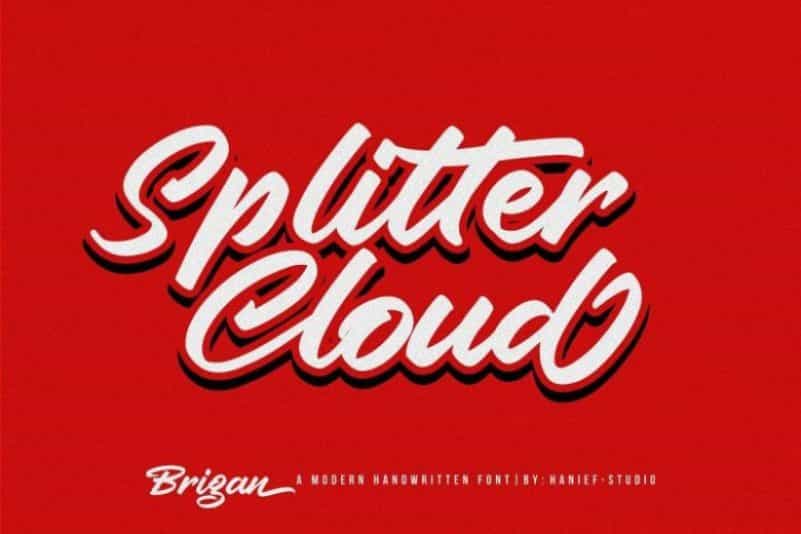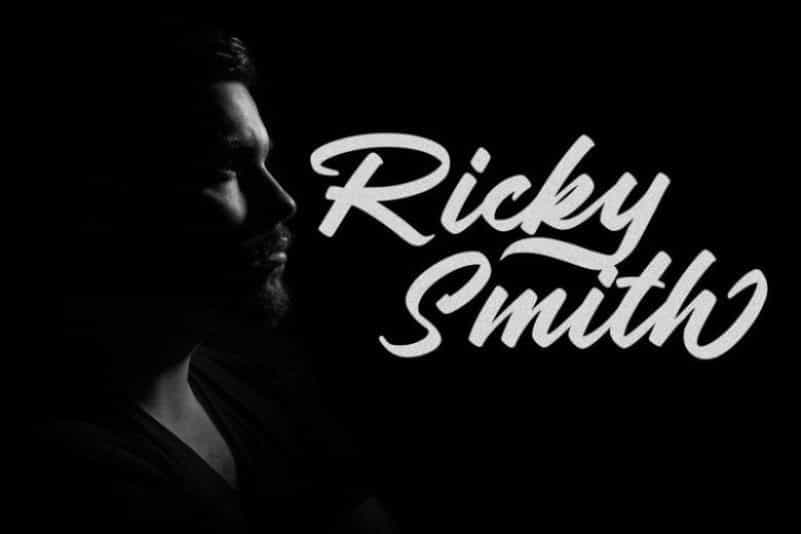
Discover Brigan Font, part of the Brush Handwritten collection—a versatile and unique font perfect for adding a personal touch to your projects. Download it for free and enjoy crafting designs with style, from invitations to social media posts. This font is available exclusively for personal use, giving you the freedom to create without limits. Unlock your creativity with Brigan Font today!
Brigan Font Legacy Lifestyle and Casual Luxury with a natural free flowing. Contain OpenType alternates and standard ligatures. Perfect for logos, name tag, handwritten quotes, product packaging, merchandise, social media & greeting cards.